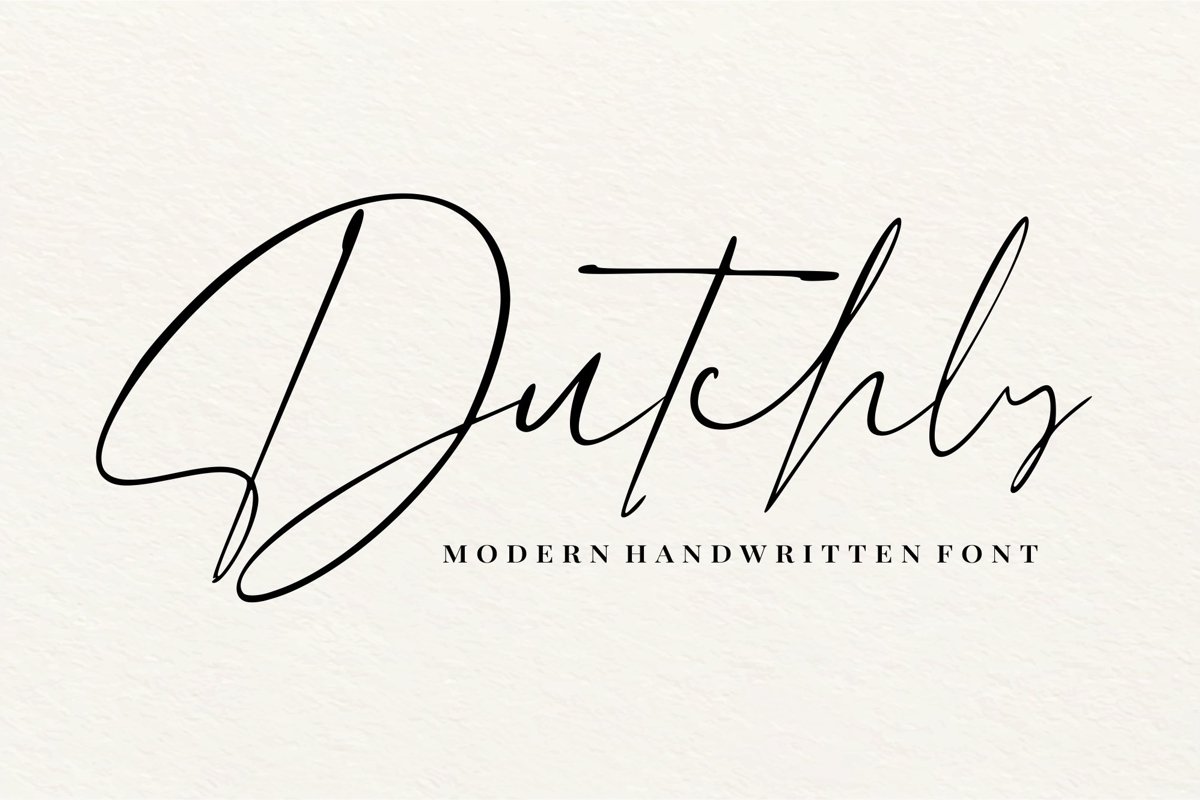
Dutchly - Modern Handwritten
Dutchly
Dutchly - Modern Handwritten Font
Dutchly - Modern Handwritten Font is a modern signature font. Perfect for logo, invitation, stationery, wedding designs, social media posts, advertisements, product packaging, product designs, label, photography, watermark, special events or anything. This font include : Dutchly OTF-TTF-WOFF, 140+ Ligatures, and also Multilingual support.
• More than 140+ Ligature Styles
• PUA Encoded open -Very great for branding, logotype, handletteing, invitations, or fashion branding.